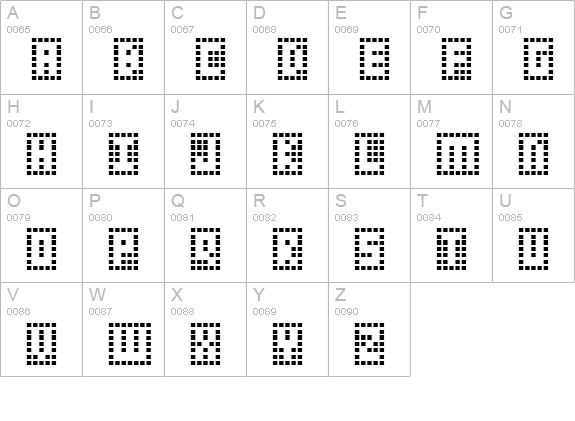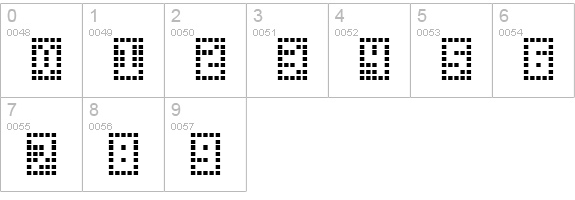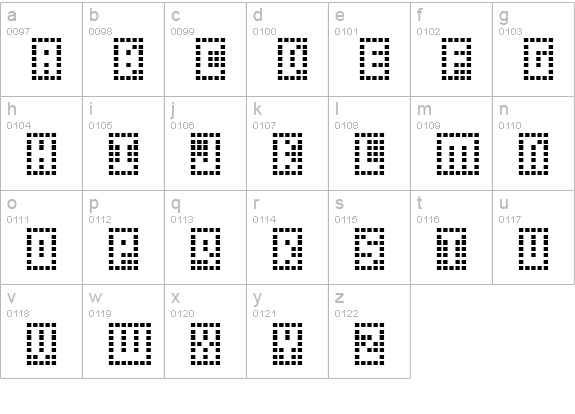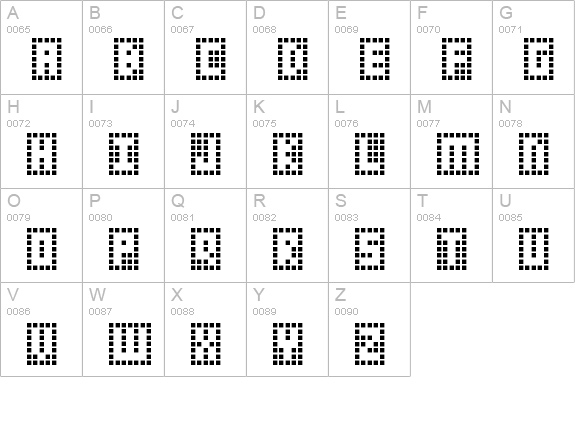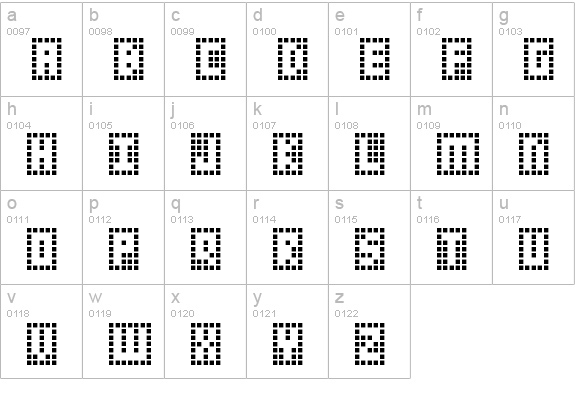
Y-Grid Font Details
Y-Grid font is a modern and sleek typeface that will add a touch of sophistication to any design project. Its unique grid-inspired design gives it a futuristic and tech-savvy appearance, making it perfect for use in digital and technology-related content. The clean lines and sharp angles of Y-Grid font make it highly versatile and suitable for a wide range of applications, from branding to editorial design. What makes Y-Grid font even more appealing is that it is available for free download at FontsMarket.com. This means that you can easily access this stylish font without any cost, making it a convenient and budget-friendly choice for your design needs. Whether you're working on a website, poster, or branding materials, Y-Grid font will elevate your project with its modern aesthetic and professional look. Download Y-Grid font today and enhance your designs with this sleek and contemporary typeface.